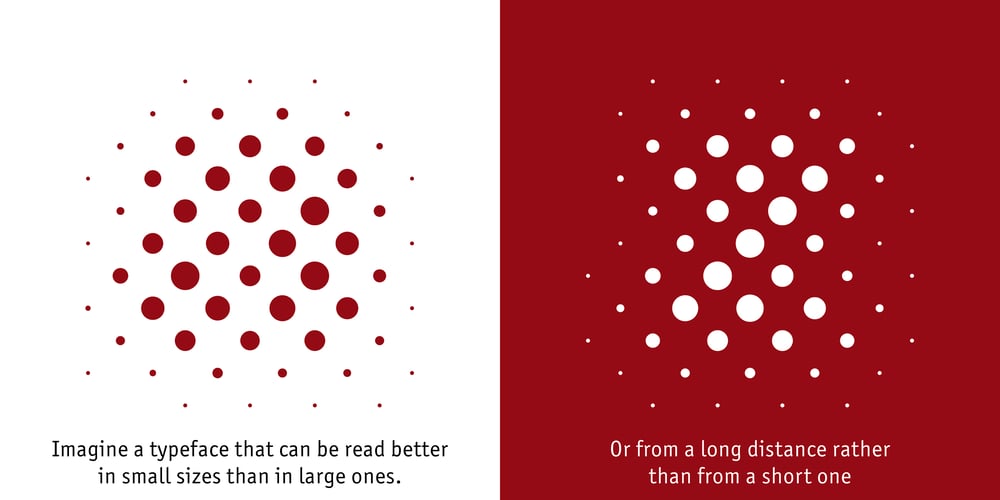
Kontext Dot
Kontext Dot font
Kontext Dot Font Family was designed by Darius Samek and published by Elster Fonts. Kontext Dot contains 12 styles and family package options. Imagine a font that is easier to read the smaller it is – or the further away the text is. There are already many rasterised fonts, I wanted to take it to the extreme and use as few dots as possible. The result is a typeface that lives up to its name.Each individual circle makes no sense on its own; individual letters are only recognisable in the context of all associated circles, individual letters are most likely to be recognised in the context of whole words.Attached to a building wall, text would be readable from a great distance and become increasingly difficult to decipher the closer you get to the building. Placed on the ground or on a large flat roof, text would only be readable from a higher building, an aeroplane or – depending on the size – in Google Earth.Kontext has old style figures, superscript numerals, case-sensitive questiondown and exclamdown and an alternative ampersand, 390 glyphs at all.Use the same value for font size and line spacing to keep the lines in the grid, or change the line spacing in 10% steps.Change the spacing in 100-unit increments to keep the grid.The numbers in the family- and style-names refer to the (ca.) grey value of the respective background and the font itself.Kontext Dot 00-33 has e.g. a white background (0%) and 33% grey value. Kontext Dot 66-33 has a 66% background and 33% grey value.»Positive« styles (first number smaller than the second number) have kerning, »negative« styles (first number bigger than the second number) can have none.